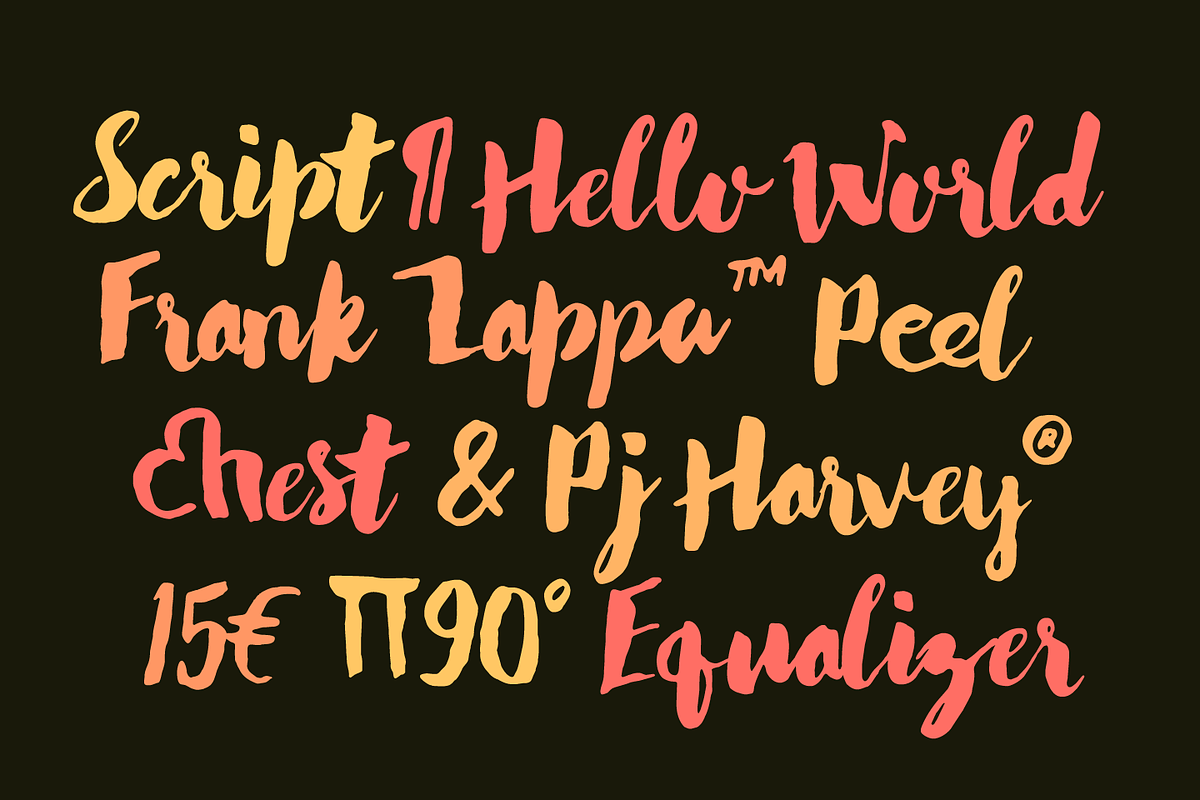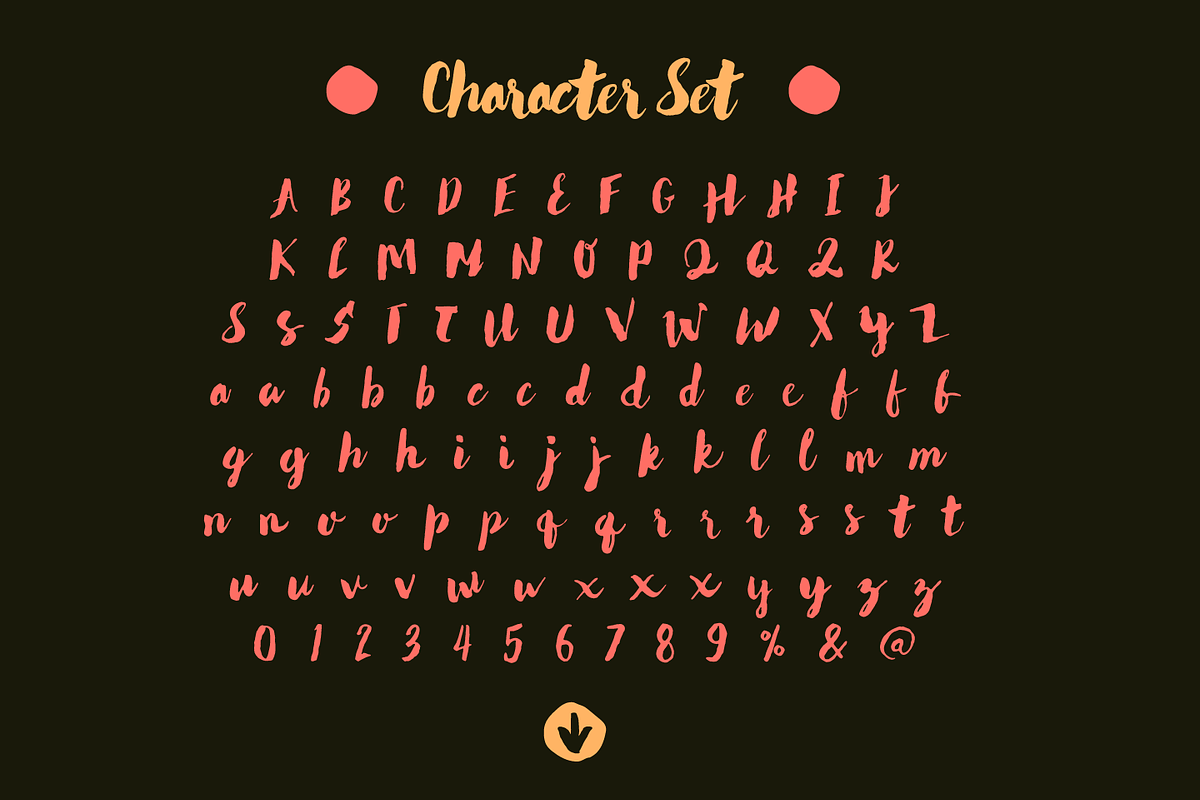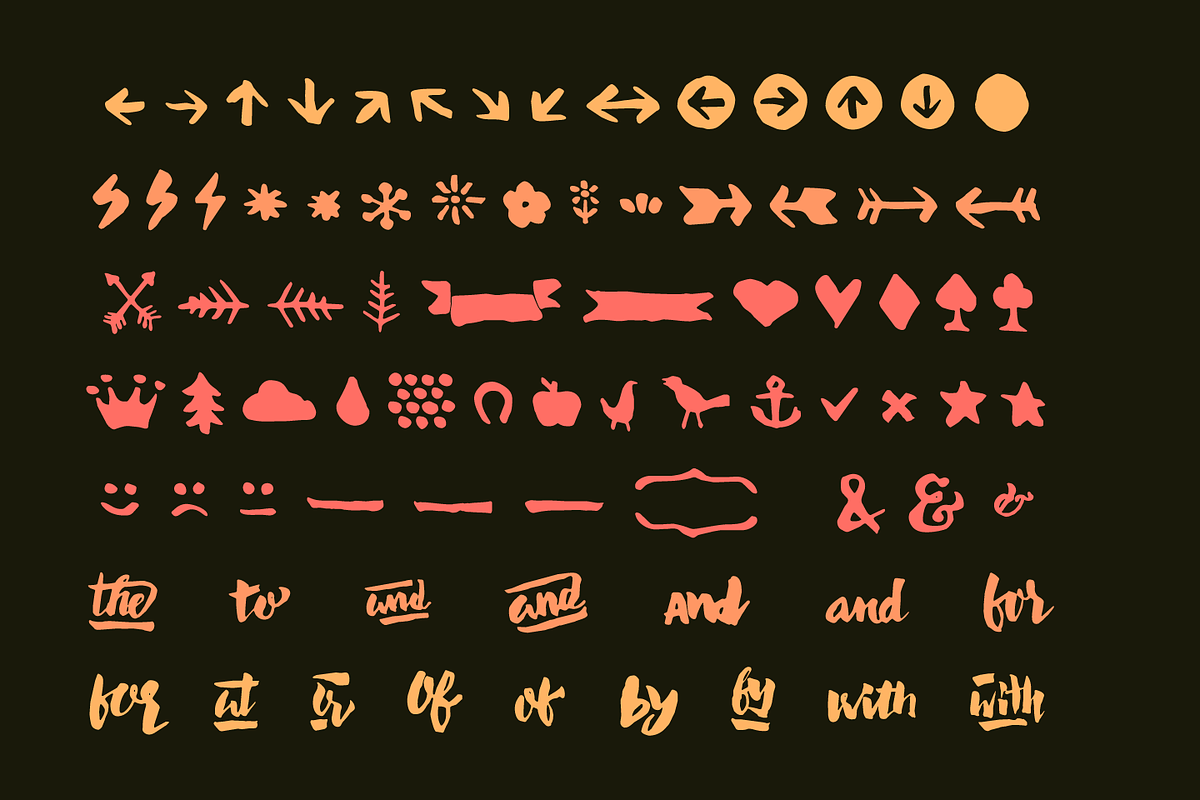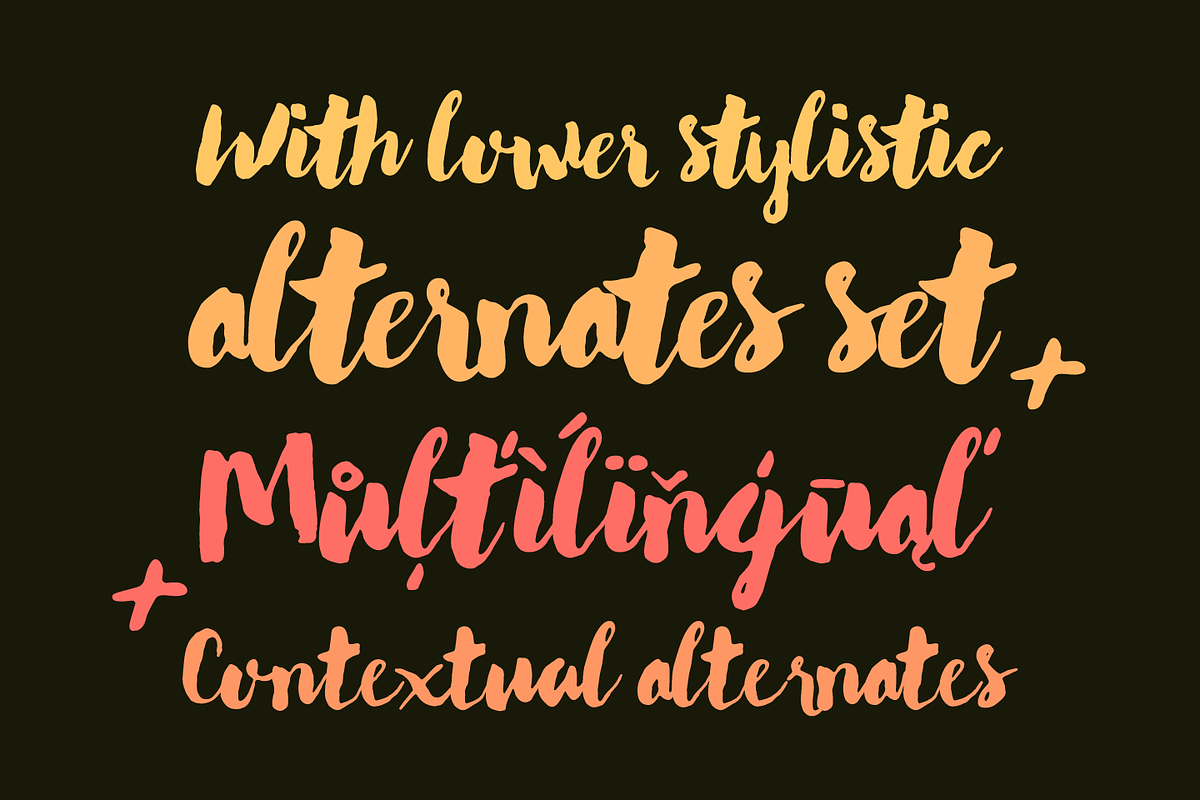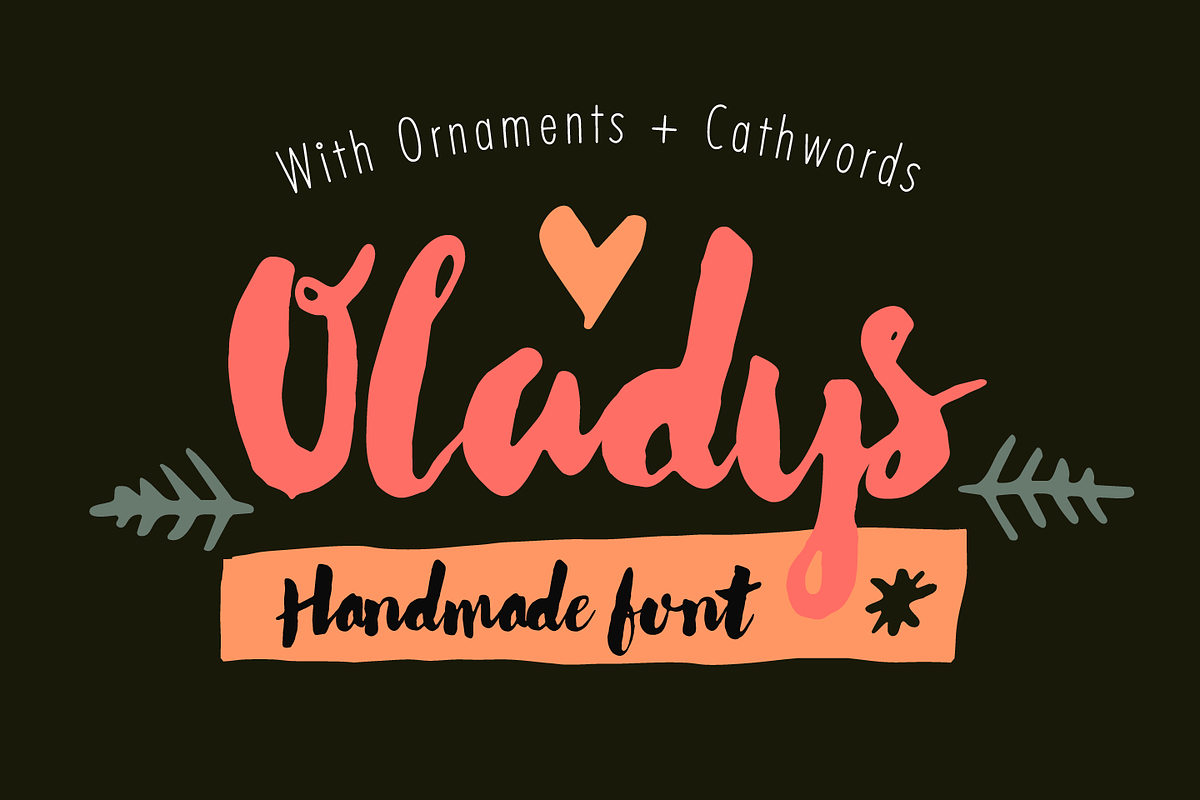
RNS Oladys
RNS Oladys by RNS Fonts is a font selected for branding, posters, packaging, typography.
- Oladys comes with: Stylistic alternate set of lowercase and some uppercase characters.
- Multilingual support (view big images to see the complete character set).
- Contextual alternates for a good looking human touch at typing.